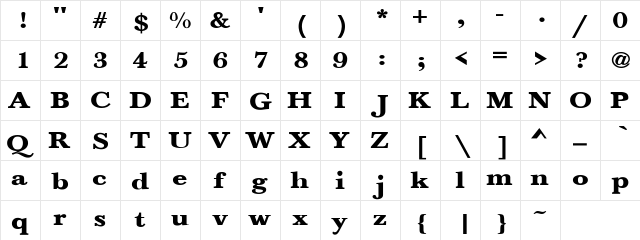
NewBaskervilleE Regular
Design Context for NewBaskervilleE Typeface
NewBaskervilleE offers clean, dependable letterforms without strong stylistic allegiance, making it a practical choice for designers who need flexibility.